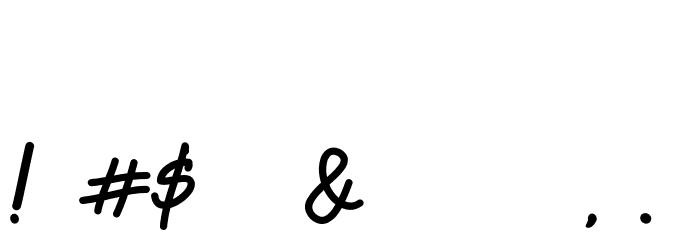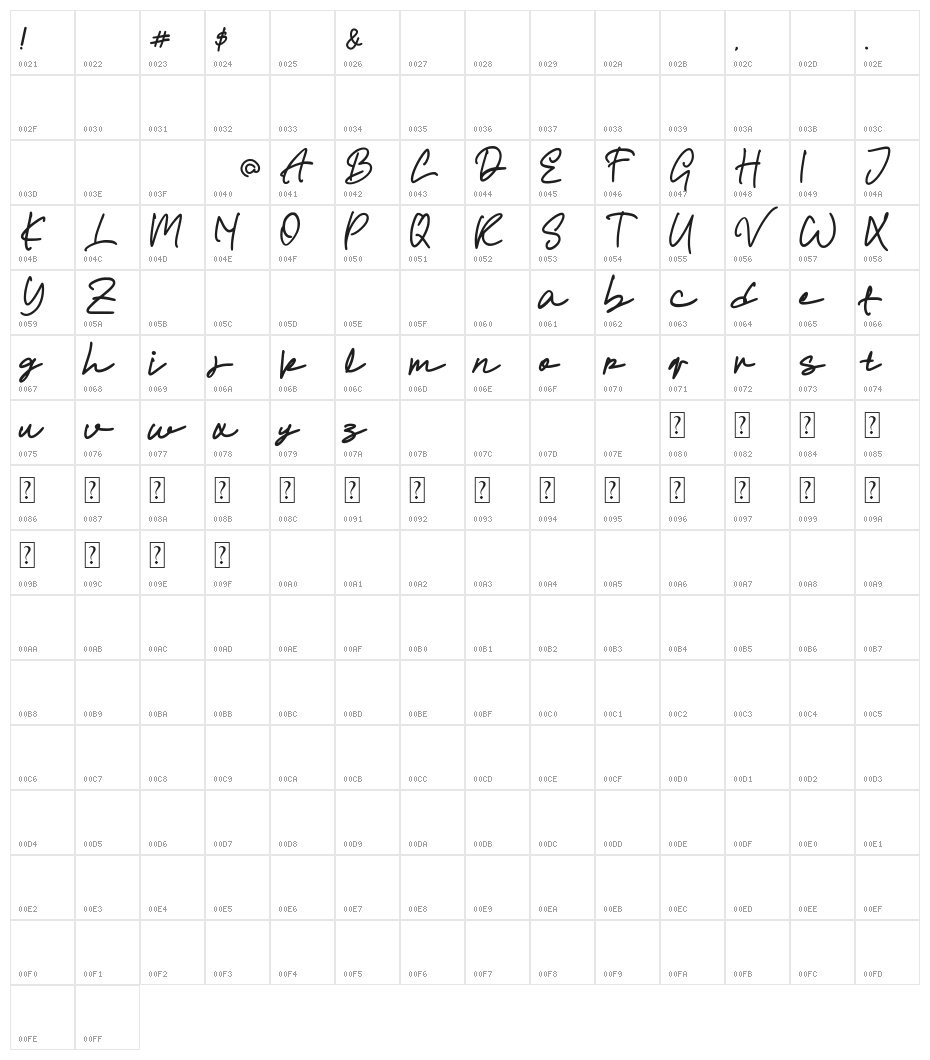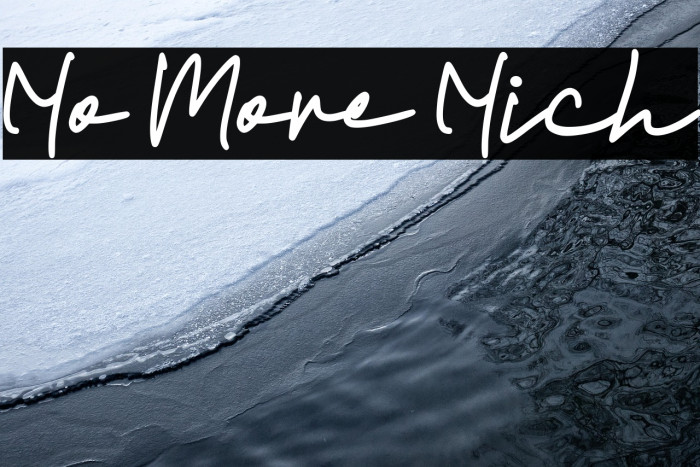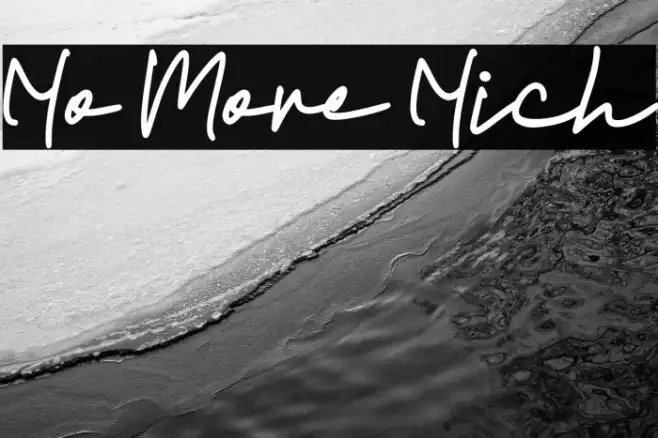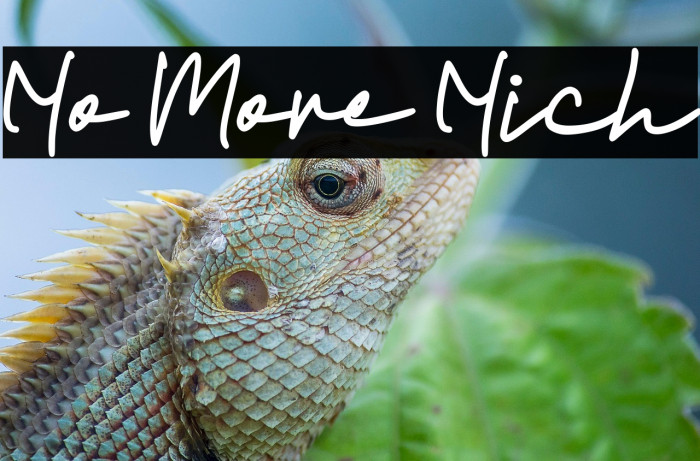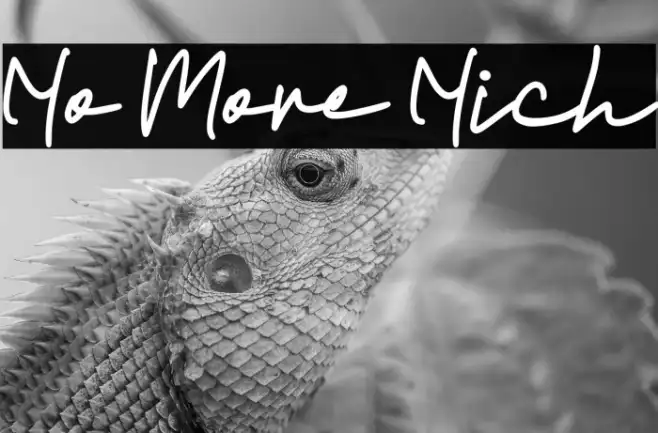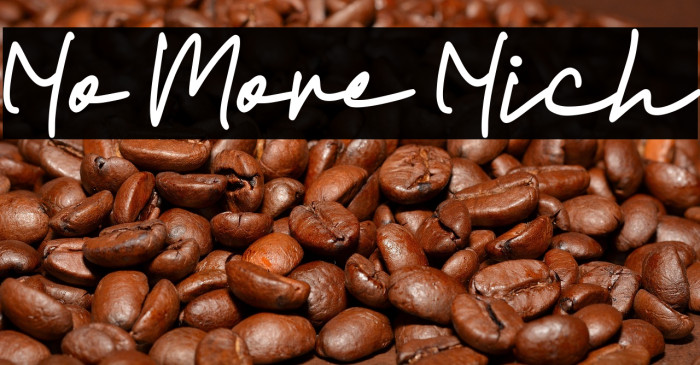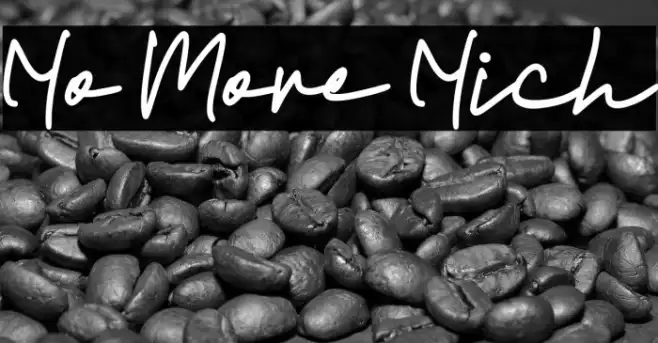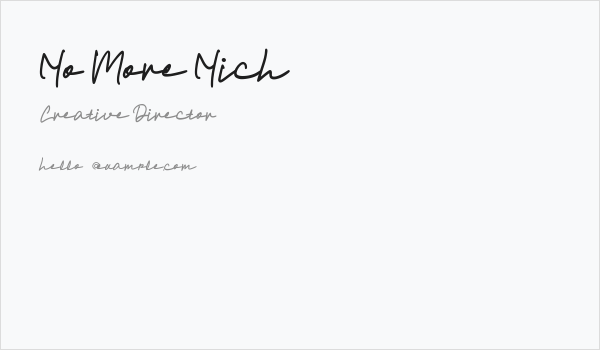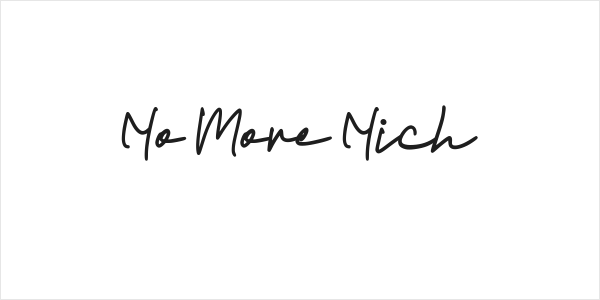
No More Nich Font
No More Nich Description
This font exudes a casual and flowing handwritten style, characterized by its smooth, cursive strokes that mimic natural handwriting. The uppercase letters maintain a consistent height with slight variations in slant, while the lowercase letters are more fluid, connecting seamlessly in a script-like manner. The overall appearance is relaxed yet elegant, making it suitable for projects that require a personal touch. The numerals and special characters are crafted with the same attention to detail, ensuring uniformity across all glyphs.
| Overall Style | Casual, Elegant |
| Proposed Projects | Ideal for personal branding, invitations, greeting cards, and creative projects that require a touch of elegance and personality. |